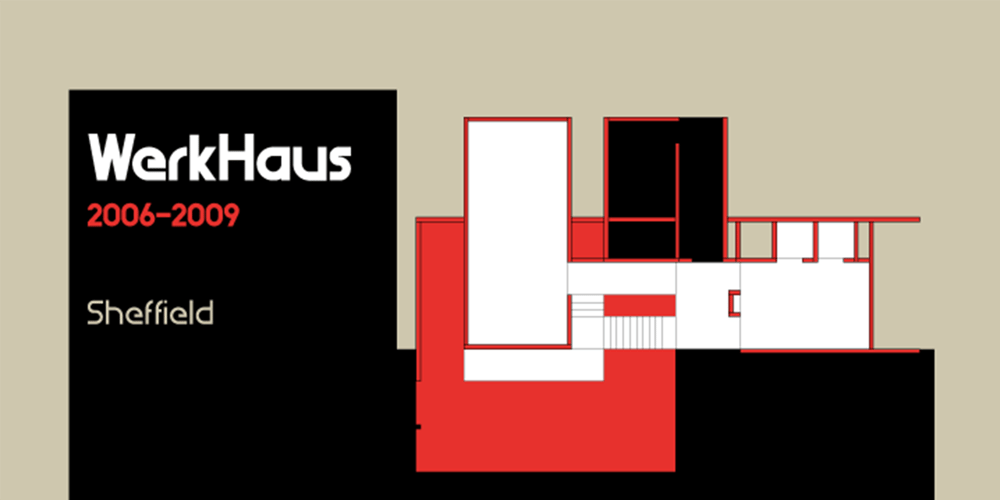
WerkHaus Font Family was designed by Jonathan Hill and published by The Northern Block. WerkHaus contains 5 styles and family package options. A minimal san serif typeface inspired by the work of Herbert Bayer and the Bauhaus Movement.